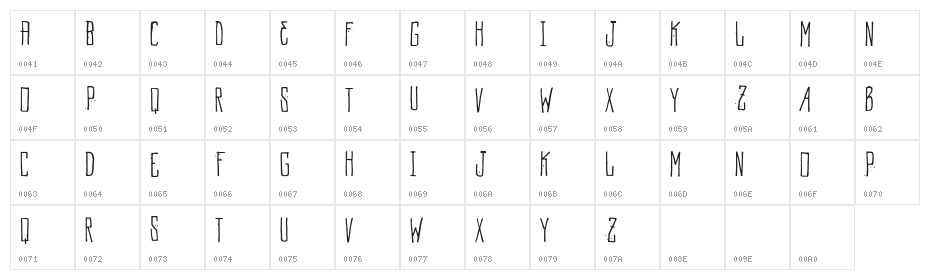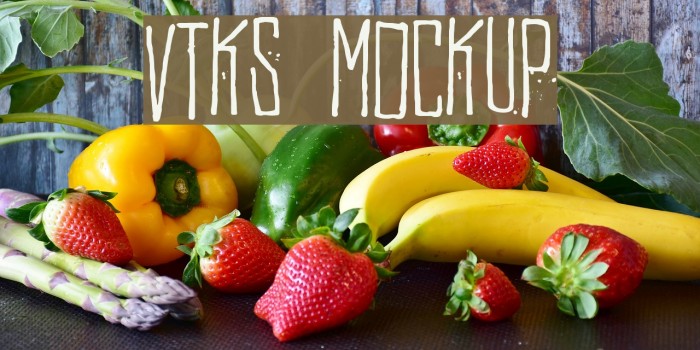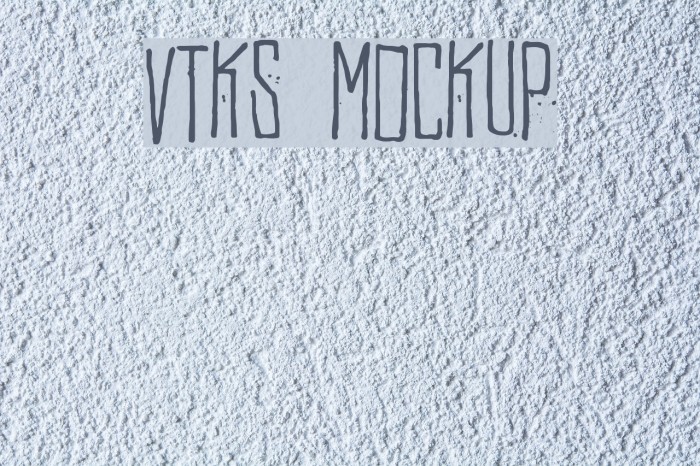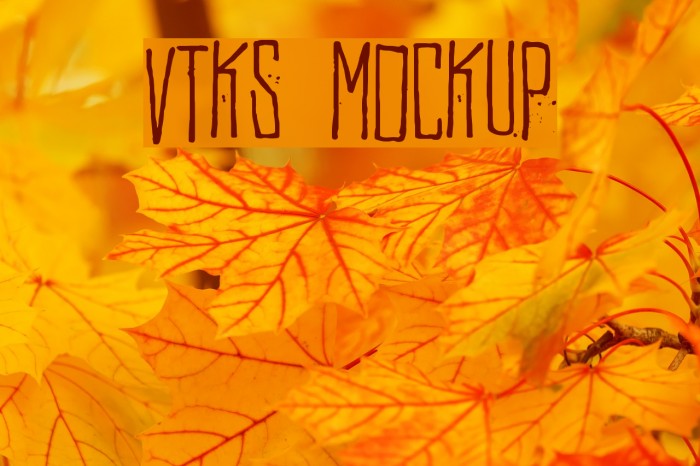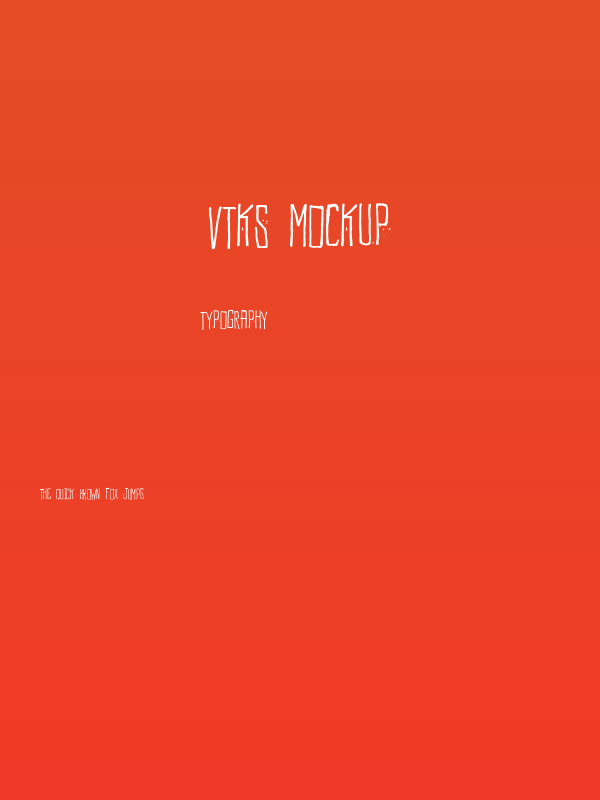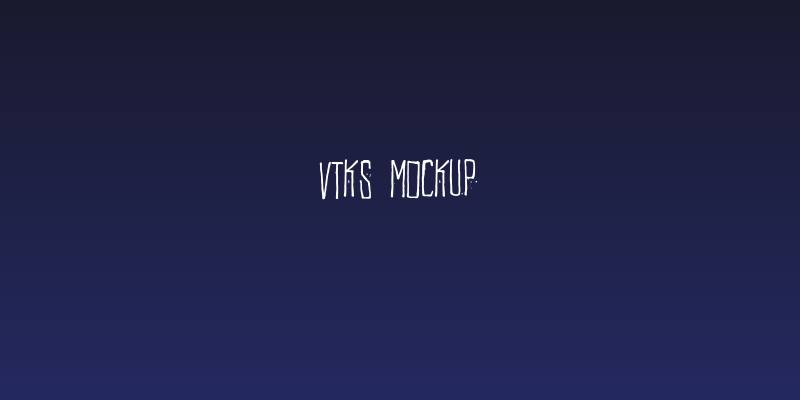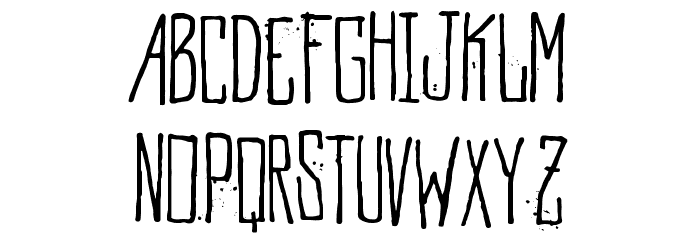
Vtks MockUp Font
Vtks MockUp Description
This font features a distressed and grungy aesthetic, characterized by irregular edges and a textured appearance that mimics a worn or weathered look. The uppercase letters are tall and narrow, with uneven line thickness that adds to the rugged feel. The overall design is reminiscent of hand-drawn lettering, giving it a unique and artistic flair. The font's style is suitable for projects that aim to convey a sense of edginess or vintage charm, making it ideal for creative and unconventional designs.
| Overall Style | Vintage, Grunge |
| Proposed Projects | Ideal for album covers, posters, and branding that require a vintage or edgy aesthetic. |